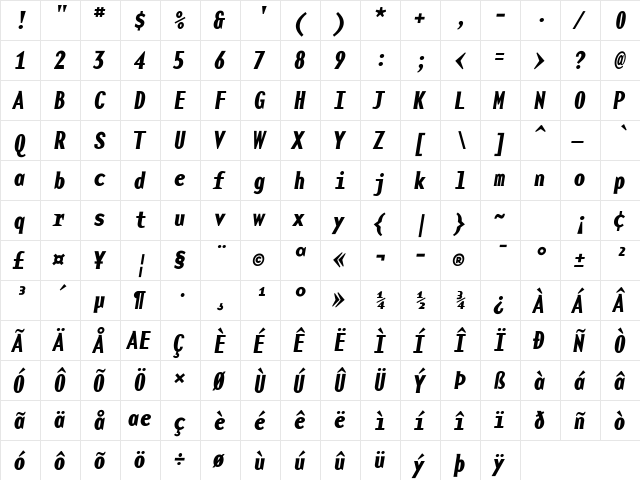
BaseMono-Narrow BoldItalic
Design Context for BaseMono-Narrow Typeface
BaseMono-Narrow uses fixed-width spacing throughout, giving it the structured, systematic character associated with coding environments and technical documentation. The dynamic lean of this cut emphasises speed and emphasis in any layout. The heavy weight commands attention and anchors typographic hierarchies.
A natural fit for code editors, technical documentation, developer-focused branding, and terminal-inspired UI.
Pro Tip: Pair BaseMono-Narrow with a proportional sans for UI contexts where code-style labels and regular body copy need to coexist.